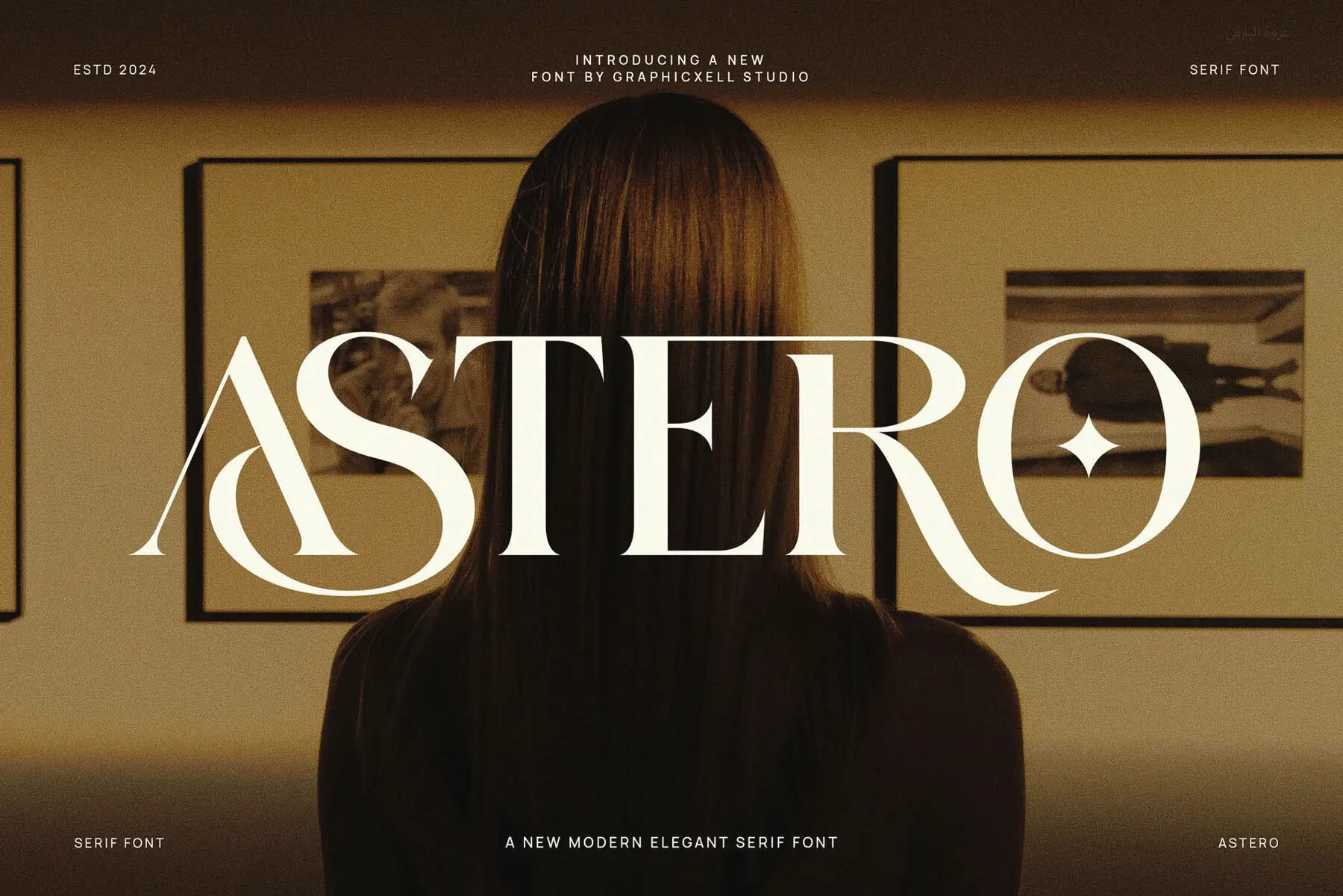
Astero Font
Astero
Astero Elegant Serif is a sophisticated typeface that embodies modern elegance with a touch of timeless charm. Designed to make a statement, this font features refined letterforms, graceful curves, and expertly crafted ligatures that enhance its visual appeal. With a perfect balance of boldness and delicacy, Astero exudes luxury and professionalism, making it an ideal choice for high-end branding, logos, editorial design, and product packaging. Its distinctive alternates and stylish ligatures create a unique typographic experience, allowing for effortless customization and creative expression. Astero is designed for versatility, seamlessly adapting to a wide range of design needs—from fashion and beauty branding to boutique signage, magazine layouts, and elegant website headers. Its high-contrast strokes and sharp serifs add a sophisticated edge, ensuring a strong presence in both print and digital media. Whether you're creating upscale advertisements, refined product labels, or eye-catching invitations, Astero delivers a polished and stylish aesthetic that captivates the viewer. Its readability and graceful structure make it a perfect blend of functionality and artistic beauty. Transform your designs with Astero Elegant Serif—a font that speaks of luxury, sophistication, and contemporary finesse.